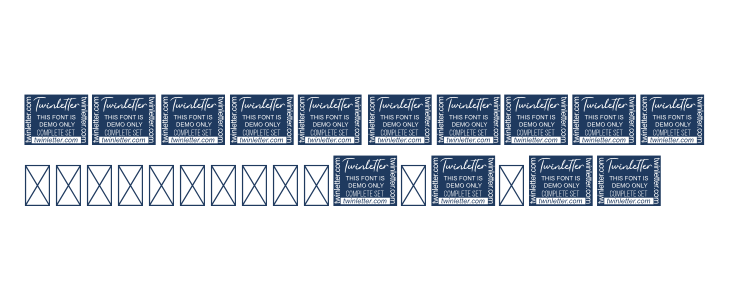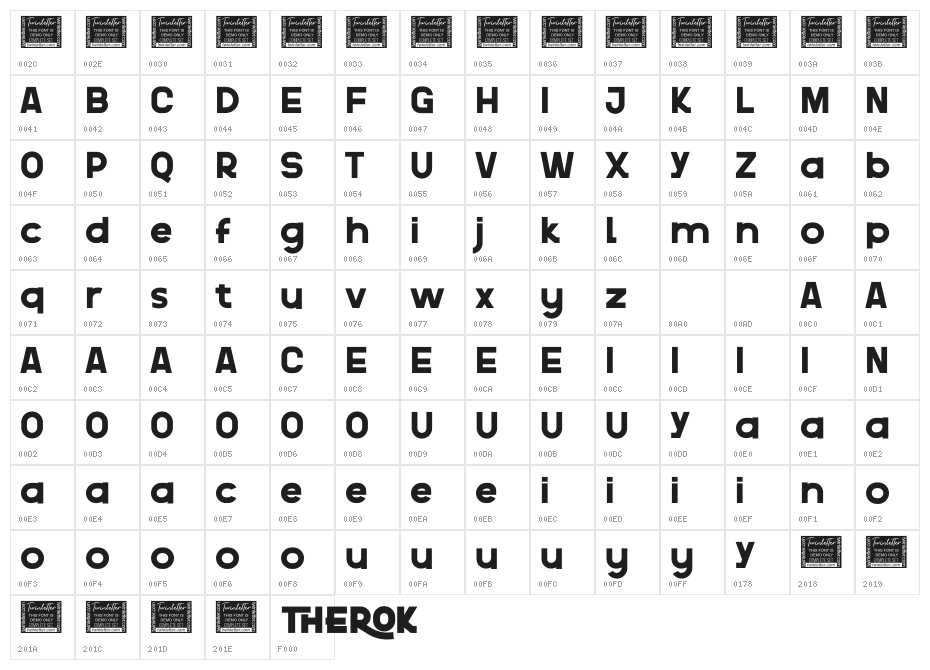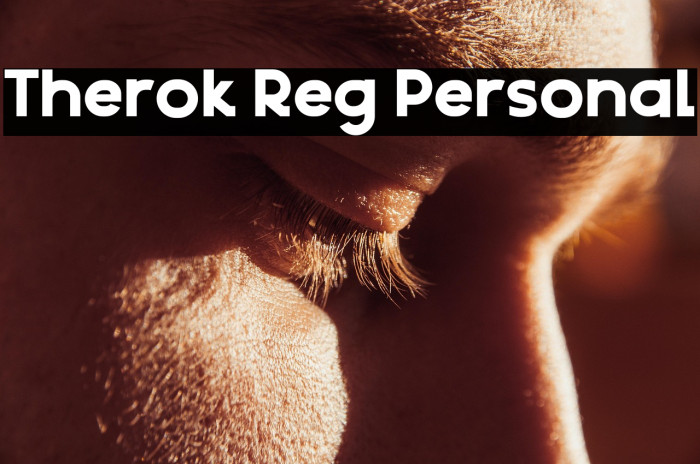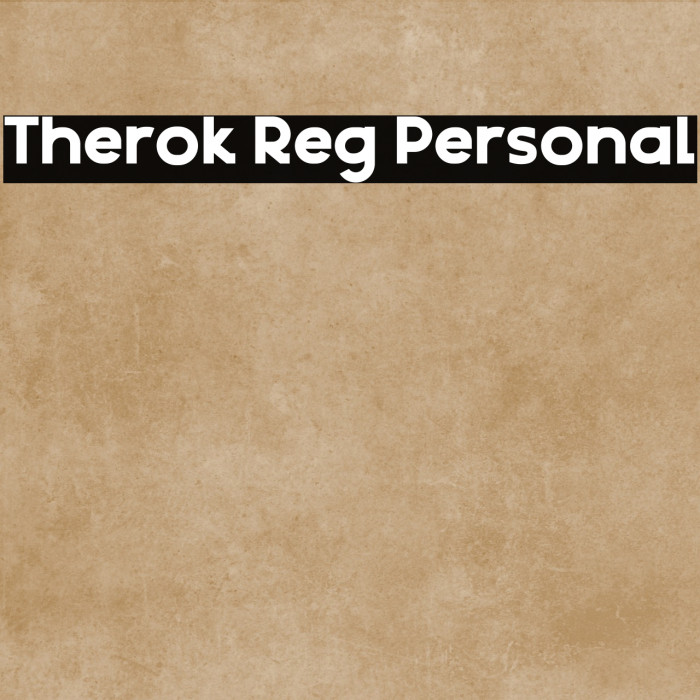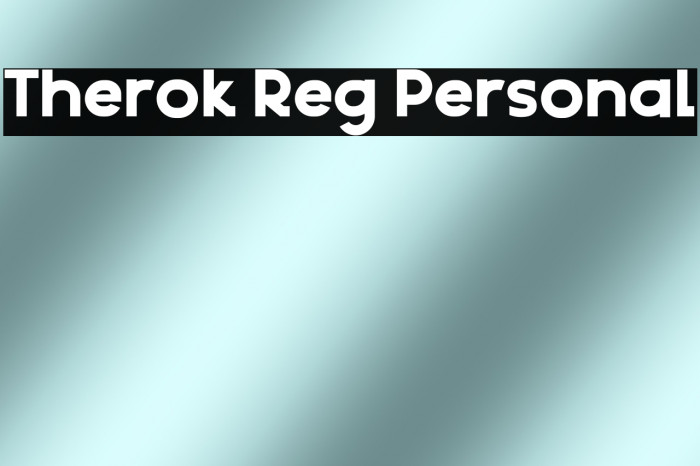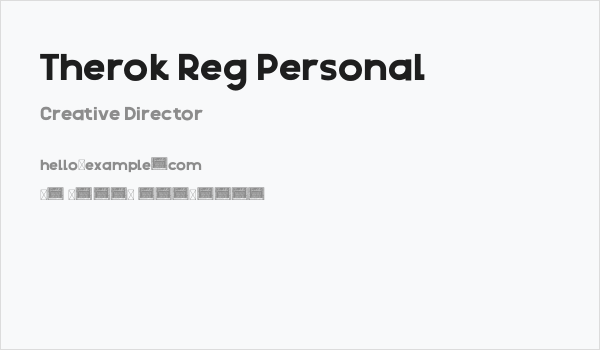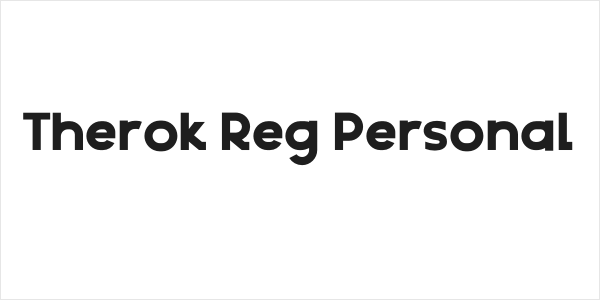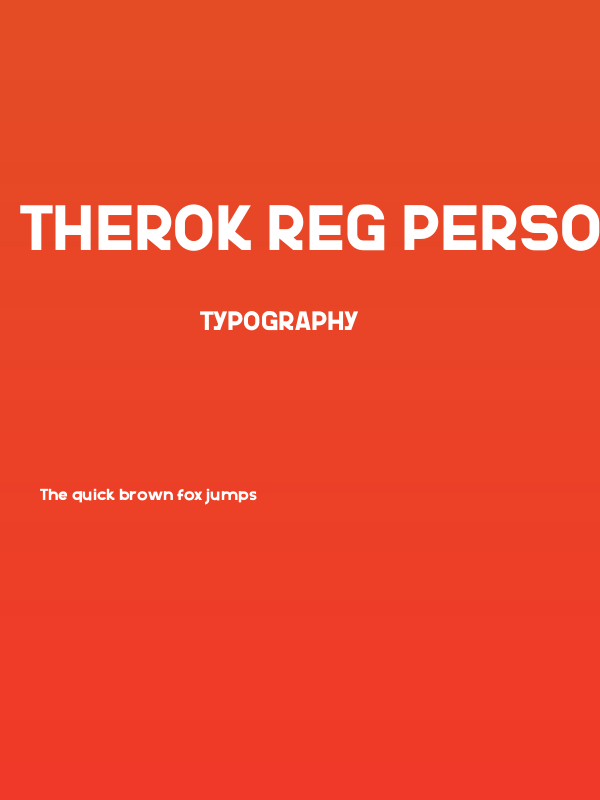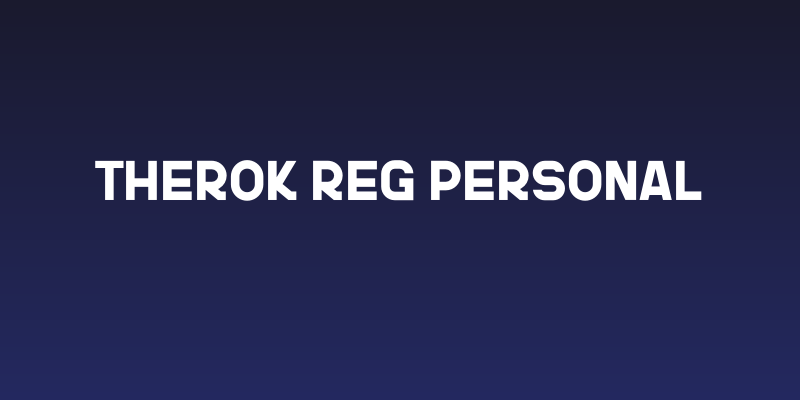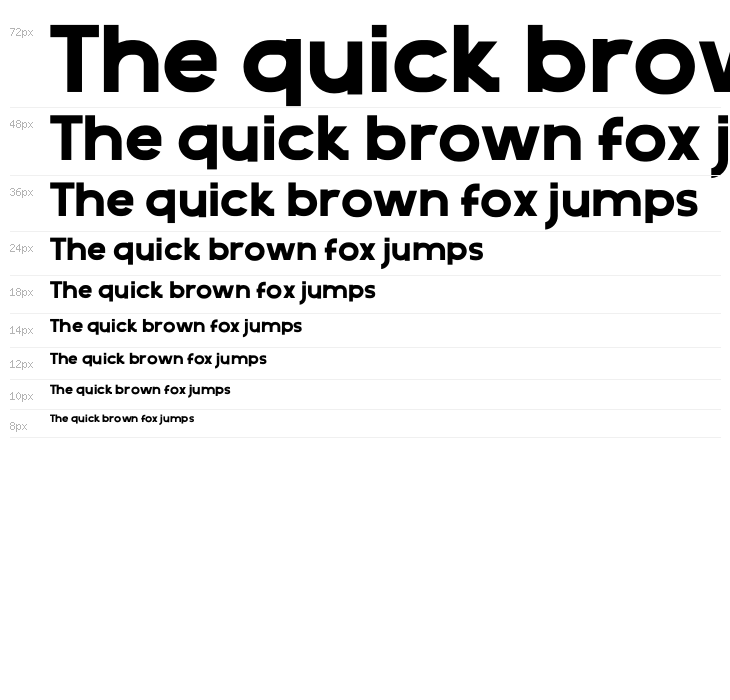
Therok Reg Personal Font
Therok Reg Personal Description
This font features a bold and modern sans-serif style with clean lines and a strong presence. The uppercase letters are uniform and geometric, providing a sense of stability and professionalism. The lowercase letters maintain a similar geometric structure, offering a harmonious balance between the two cases. The font's overall design is straightforward, making it highly legible and suitable for various applications. The characters are evenly spaced, contributing to its readability, and the consistent stroke width ensures a cohesive appearance across all characters.